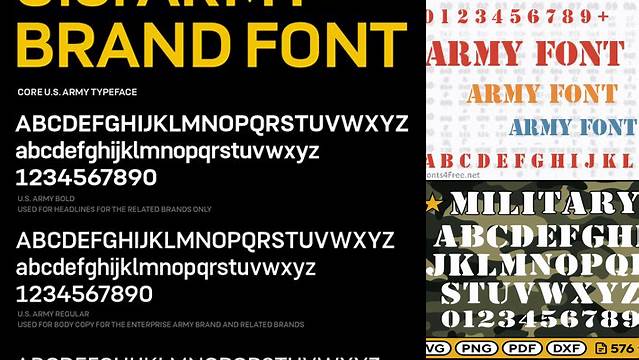
Download US Army Font: Free Options & Guide
Finding the perfect font to capture the essence of the US Army can be a real mission. Whether you're working on a military-themed project, designing a tribute, or just appreciate the strong, authoritative look, getting the right font is crucial. This article will guide you through everything you need to know about US Army fonts, including where to find them, how to use them, and even some free download options. Let's dive in, guys!
1. Understanding the Significance of US Army Fonts
US Army fonts aren't just about aesthetics; they represent strength, discipline, and history. The fonts often used in official materials and designs convey a sense of authority and tradition. Understanding this significance helps you choose the right font and use it appropriately. The fonts evoke feelings of patriotism and respect. These fonts are carefully selected to reflect the values and mission of the US Army. They must be legible, impactful, and suitable for various applications, from documents to signage. The choice of font is a deliberate decision, aimed at communicating professionalism and a unified identity. The fonts used by the US Army have evolved over time, but they consistently maintain a strong, clear, and authoritative presence. The fonts also contribute to the visual branding of the US Army, helping to create a recognizable and consistent image. Recognizing the importance of these fonts allows designers and enthusiasts to appreciate their role in representing the US Army's values and mission.
2. Identifying Official US Army Fonts
Identifying the official US Army fonts can be tricky because there isn't one single font used across all applications. However, certain fonts are commonly associated with the Army. Arial and similar sans-serif fonts are often used for their clarity and legibility in official documents and websites. For more stylized applications, you might see fonts that evoke a military feel, such as those with a stencil or blocky design. The key is to look for fonts that are clean, strong, and easy to read. These fonts are chosen for their ability to convey professionalism and authority. While there may not be a single, officially designated font, the US Army's branding guidelines often emphasize the importance of clarity and consistency. This means that fonts are selected based on their ability to effectively communicate information and maintain a cohesive visual identity. In many cases, the choice of font depends on the specific application, with different fonts being used for print materials, digital content, and signage. It's also worth noting that the US Army may use custom fonts or variations of standard fonts to create a unique look. By understanding the principles behind the selection of fonts, you can better identify those that align with the US Army's visual identity.
3. Where to Find Free US Army Fonts
Looking for free US Army fonts? There are several websites that offer font downloads, but you need to be careful about licensing and quality. Sites like DaFont, FontSpace, and Creative Fabrica often have military-style fonts available for free. However, always check the license to ensure you can use the font for your intended purpose, especially if it's for commercial projects. Another option is to search for open-source fonts that mimic the military aesthetic. These fonts are usually free to use for any purpose. Remember to preview the font before downloading to ensure it meets your needs. When searching for free fonts, it's important to be aware of the potential risks involved. Some websites may offer fonts that are poorly designed or contain malware. It's always a good idea to download fonts from reputable sources and to scan the files with antivirus software before installing them. Additionally, be sure to read the license agreement carefully to understand the terms of use. Some fonts may be free for personal use but require a commercial license for business purposes. By taking these precautions, you can safely find and use free US Army fonts for your projects.
4. Best Websites for Military-Style Font Downloads
When searching for military-style font downloads, some websites consistently offer a good selection. DaFont is a popular choice with a wide variety of free fonts, including many that fit the military theme. FontSpace is another great option, offering a user-friendly interface and a diverse collection of fonts. Creative Fabrica also has a selection of military fonts, though some may require a subscription or purchase. Google Fonts is another excellent resource, offering a range of open-source fonts that can be used for free in any project. When browsing these websites, use keywords like "military font," "stencil font," or "army font" to narrow down your search. Remember to check the licensing terms before downloading and using any font. In addition to the websites mentioned above, consider exploring other online font foundries and marketplaces. These platforms often feature unique and high-quality fonts that may not be available elsewhere. Some notable examples include MyFonts, FontShop, and Adobe Fonts. When evaluating different websites, pay attention to factors such as the quality of the fonts, the ease of navigation, and the availability of licensing information. By exploring a variety of sources, you can find the perfect military-style font for your project.
7. Using Stencil Fonts for a Military Aesthetic
Using stencil fonts is a great way to achieve a military aesthetic. Stencil fonts mimic the look of lettering that has been applied using a stencil, which is common in military applications. These fonts often have a rugged, industrial feel that is perfect for creating a strong, impactful design. When using stencil fonts, consider the overall design of your project. Stencil fonts work well for headlines, logos, and other prominent elements. They can also be used in smaller text, but make sure the font is legible at the intended size. Experiment with different colors and backgrounds to see what works best. Stencil fonts can be combined with other design elements, such as military-themed graphics or textures, to create a cohesive and authentic look. When selecting a stencil font, pay attention to the details of the design. Some stencil fonts have a more traditional look, while others are more modern and stylized. Choose a font that matches the overall tone and style of your project. You can also customize stencil fonts by adding your own unique touches, such as distressing the edges or adding texture. By using stencil fonts effectively, you can create a powerful and visually appealing design that captures the essence of the military aesthetic.
8. Exploring Sans-Serif Fonts for Clarity
Exploring sans-serif fonts is essential for ensuring clarity and legibility in your designs. Sans-serif fonts are characterized by their clean, simple lines and lack of serifs (the small decorative strokes at the ends of letters). These fonts are often used in body text and other applications where readability is important. When choosing a sans-serif font, consider the overall style and tone of your project. Some sans-serif fonts are more modern and geometric, while others are more traditional and humanist. Choose a font that matches the overall aesthetic of your design. Experiment with different font weights and sizes to see what works best. Sans-serif fonts can be combined with other design elements, such as images and colors, to create a visually appealing and effective layout. When using sans-serif fonts, pay attention to the spacing between letters and lines. Proper spacing can improve readability and make your text more visually appealing. You can also adjust the kerning (the spacing between individual letters) to fine-tune the appearance of your text. By exploring the wide variety of sans-serif fonts available, you can find the perfect font for your project and ensure that your text is clear and easy to read.
9. Tips for Choosing the Right Font for Your Project
Choosing the right font for your project can significantly impact its overall success. Consider the purpose of your project and the message you want to convey. Are you creating a serious, professional document, or a fun, playful design? The font should align with the tone and style of your project. Think about your target audience. What kind of fonts will they find appealing and easy to read? Consider the context in which the font will be used. Will it be displayed on a screen or printed on paper? Choose a font that is legible in the intended medium. Don't be afraid to experiment with different fonts and combinations. Try pairing a bold headline font with a more subtle body text font. Get feedback from others. Ask friends, colleagues, or potential customers for their opinions on your font choices. By following these tips, you can choose the right font for your project and create a design that is both visually appealing and effective. In addition to the tips above, it's also important to consider the technical aspects of font selection. Make sure the font is available in the formats you need (e.g., OTF, TTF, WOFF) and that it is compatible with the software you are using. You should also test the font on different devices and browsers to ensure that it displays correctly. By paying attention to these details, you can avoid potential problems and ensure that your project looks its best.